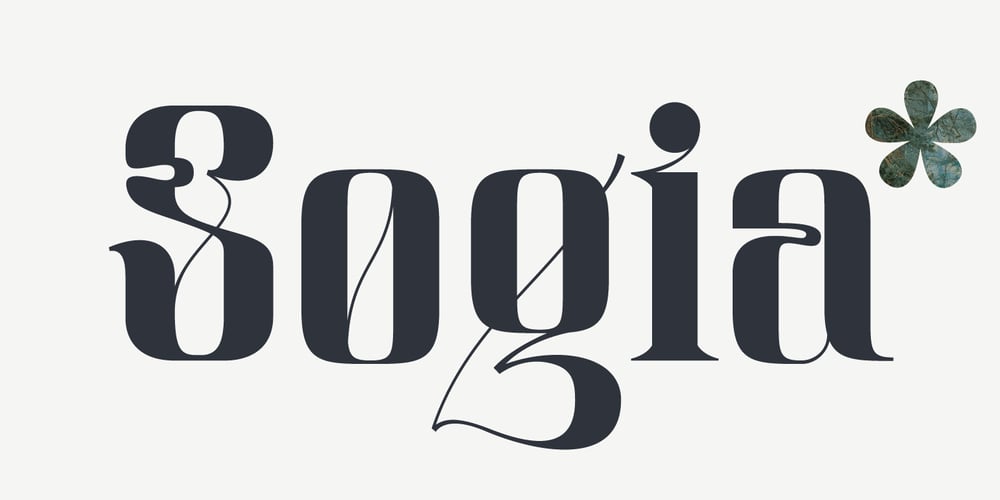
Sogia Font Family was designed by Roman Korolev and published by Kaer. Sogia contains 1 styles and family package options. Introducing my new modern Renaissance serif typeface Sogia. Vintage font with unique thin line decoration elements. Perfect to use in any fashion labels, glamour posters, luxury identity, etc.What’s included?* Regular style* Uppercase and lowercase* Numbers* Symbols* Ligatures* Punctuation* Multilingual supportI hope you enjoy this font. Follow my shop to receive updates of products and the very hottest news! If you have any question or issue, please contact me: kaer.pro@gmail.com Please request to add additional characters and glyphs if you need! Thank you!